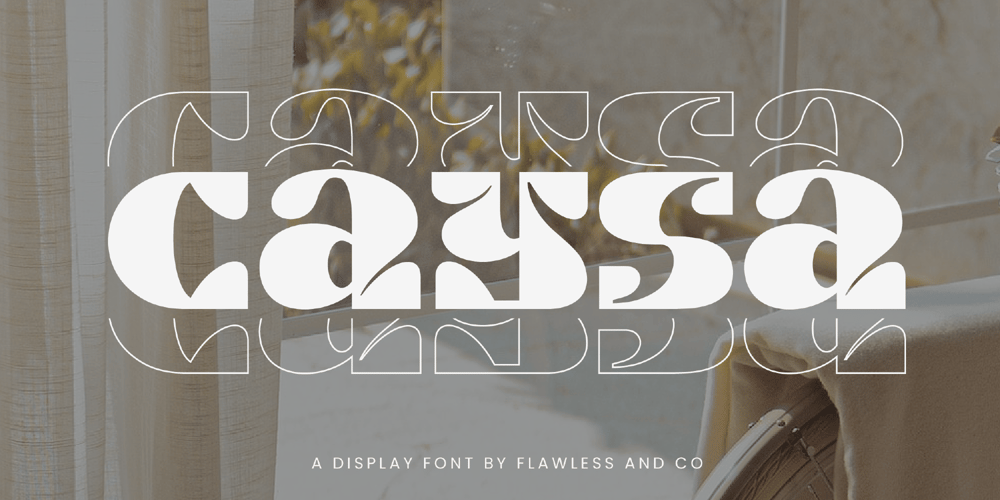
Caysa Font Family was designed by Achmad Yani and published by Flawlessandco. Caysa contains 1 styles and family package options. Introducing “Caysa” – An Elegant Display Font. Unveil the extraordinary with “Caysa,” an exquisite display font that redefines elegance with its distinct and unique design. There’s some connected letters and some alternates that suitable for any graphic designs such as branding materials, t-shirt, print, business cards, logo, poster, t-shirt, photography, quotes .etcThis font support for some multilingual. Also contains uppercase A-Z and lowercase a-z, alternate character, numbers 0-9, and some punctuation.If you need help, just write me! Thanks so much for checking out my shop!